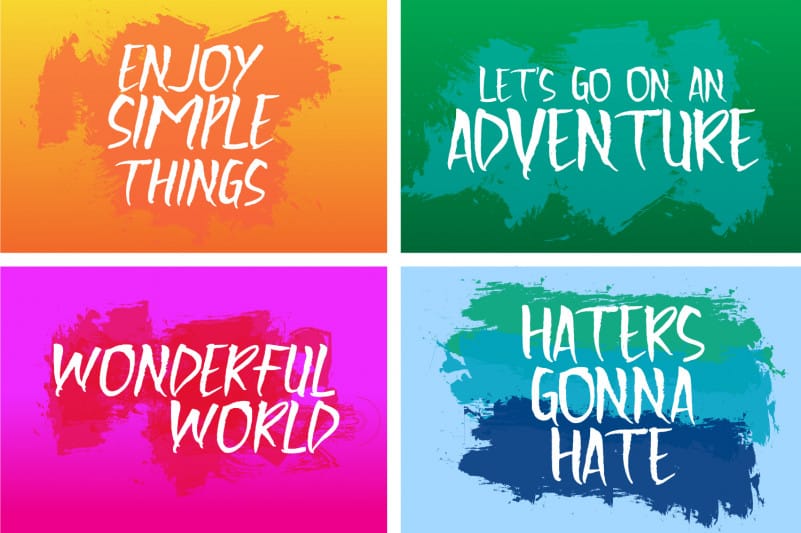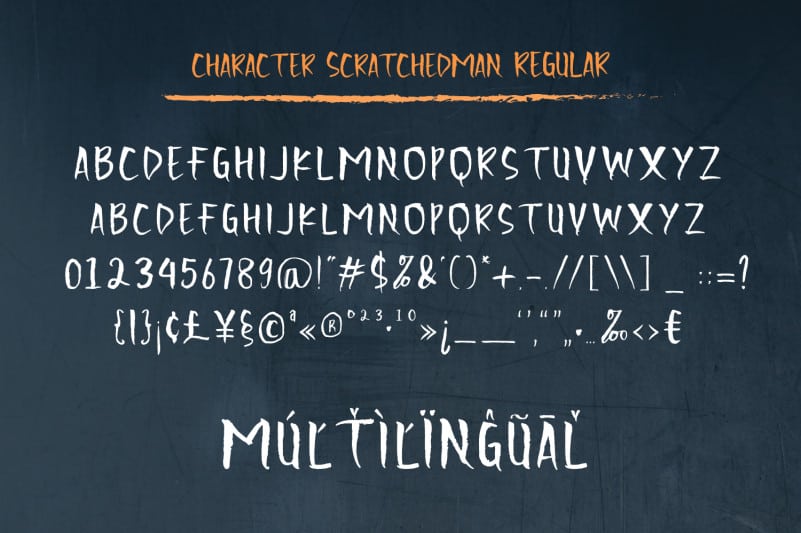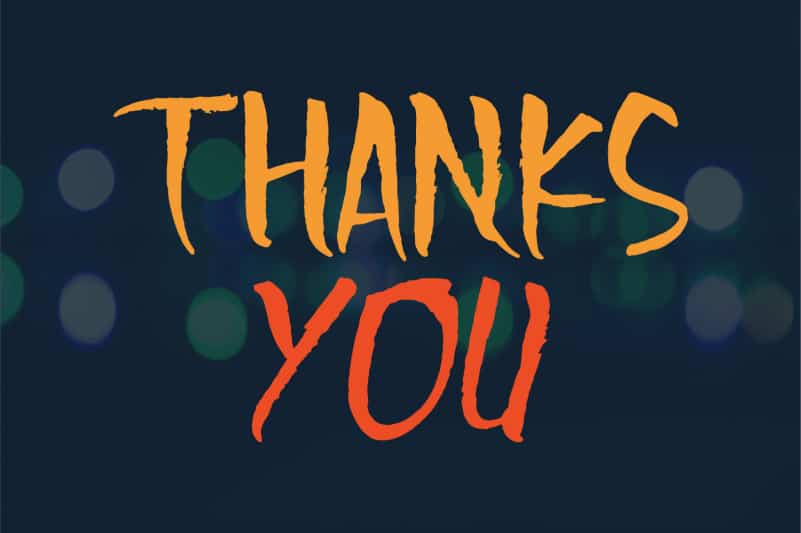
Scratchedman Display Font
Scratchedman Display Font is a natural handwritten font. This All Caps typeface is strong to stand out in your design projects. Scratchedman Font has two font styles Regular and Italic so you can customize it in your design project, as well as multilingual support.